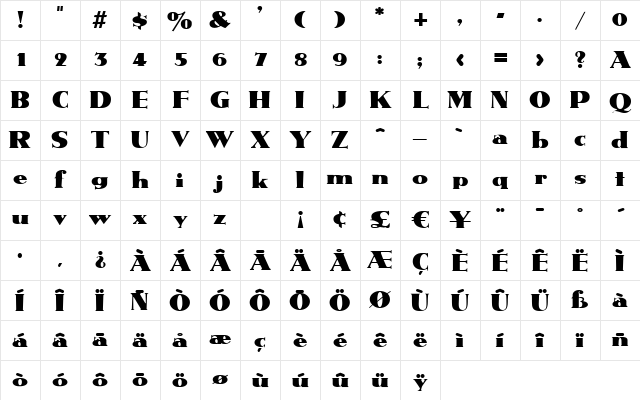
Deco-M691 Regular
Design Context for Deco-M691
Deco-M691 is a composed and adaptable typeface that performs quietly and consistently across a wide range of design contexts.